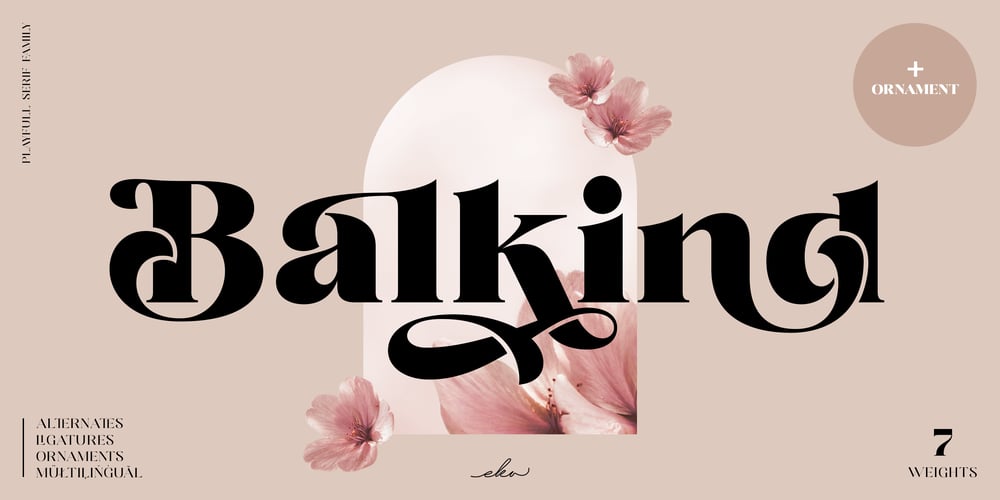
Balkind Font Family was designed by Putu Eka Hermawan and published by Ekahermawan. Balkind contains 8 styles and family package options. Proudly present Balkind is a playfull and beauty serif family that consists of 7 weights from Thin to ExtraBold. All the alternates and ligatures characters of Balkind are specially designed to make your typography design result looks more unique and attractive. Balkind also comes with ornaments that will support your creativity in creating many design projects such as logo design, branding, poster, magazines, labels, merchandise, invitation, presentation, advertising and so much more!FEATURES: OpenType support Playful to use (with ligatures and alternates options) Multilingual support PUA Encoded If you need support or more information about this item, please kindly contact me: ekahermawanputu@gmail.comThank you so much…I really hope you enjoy when using it!